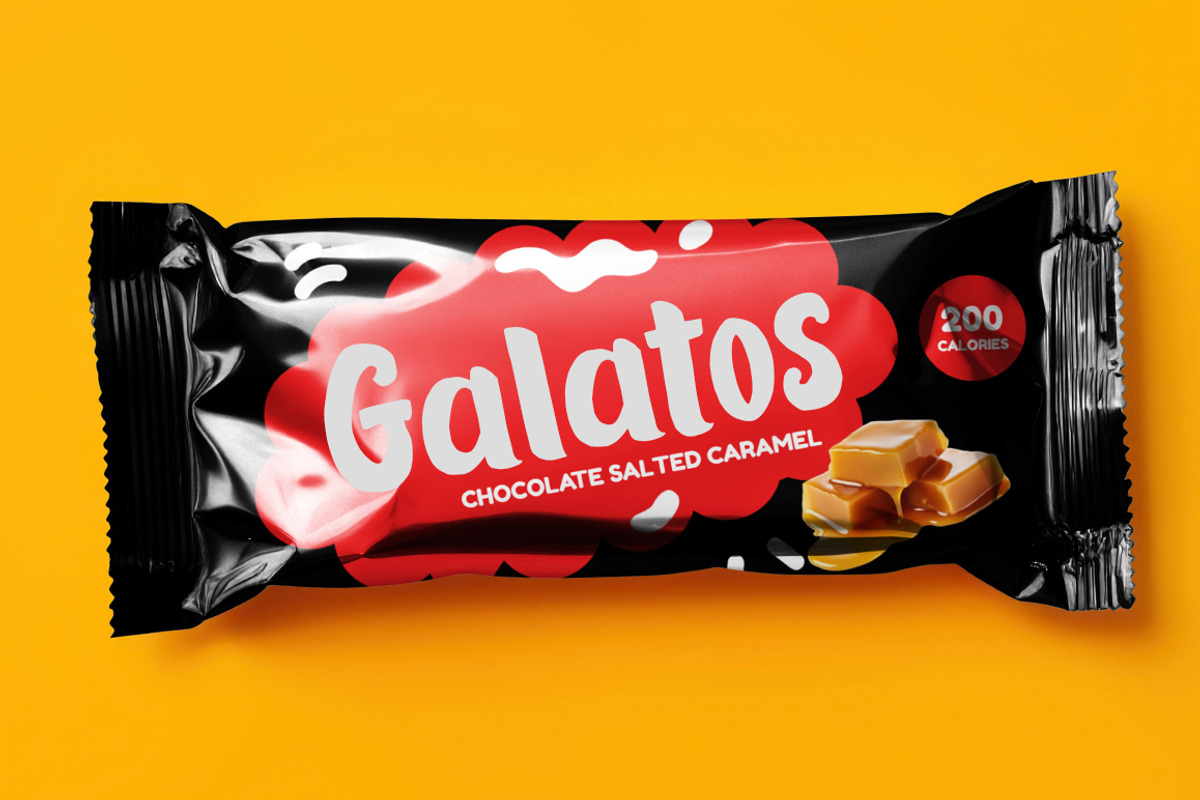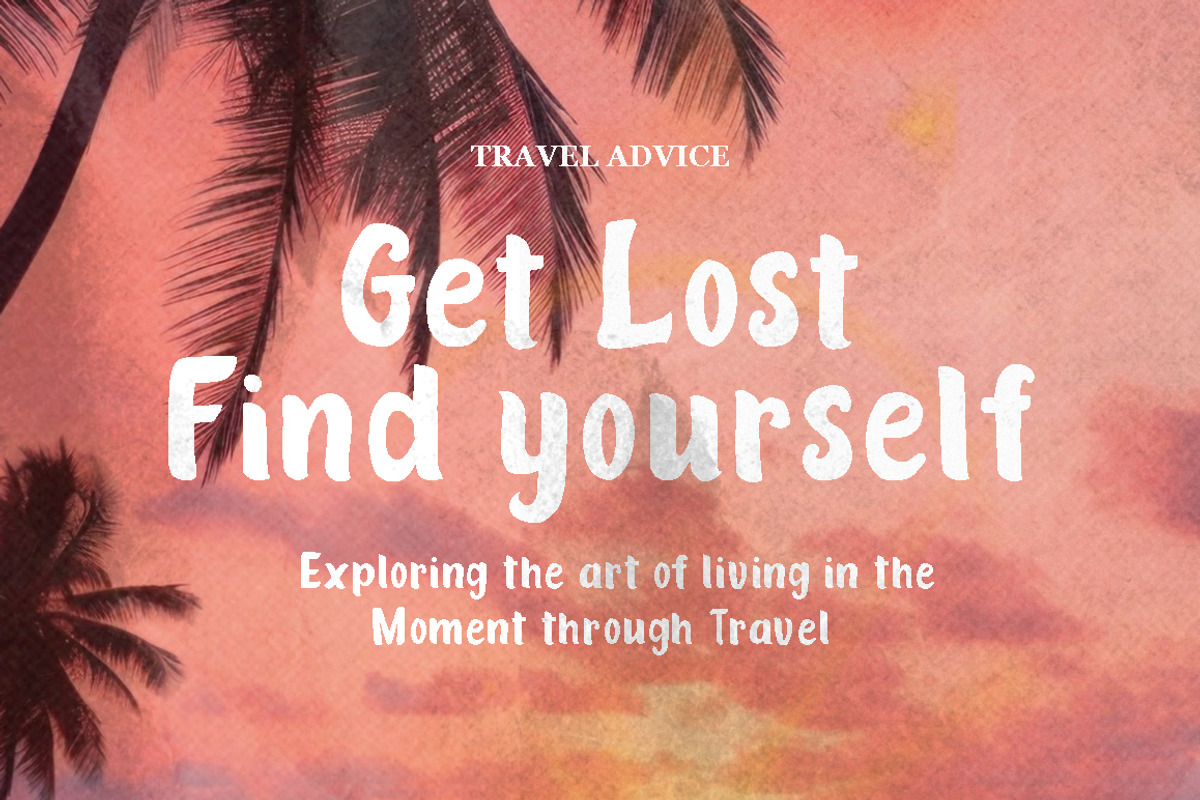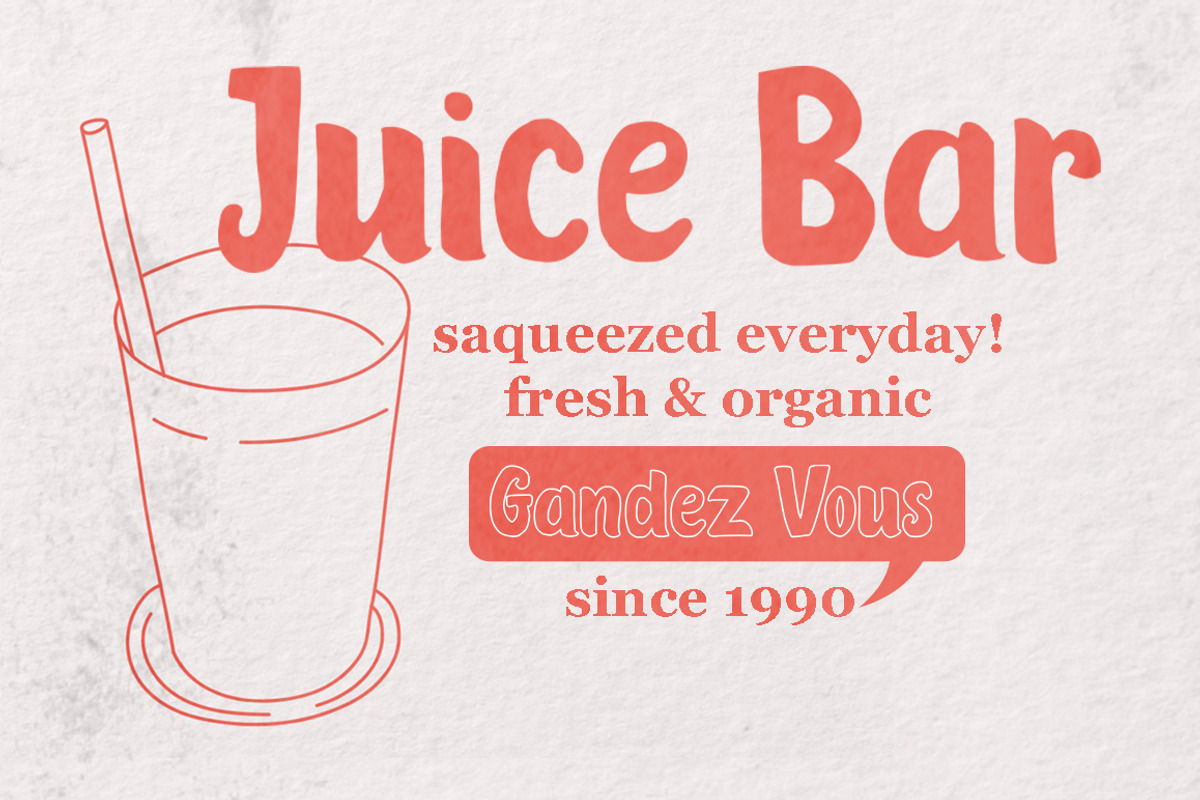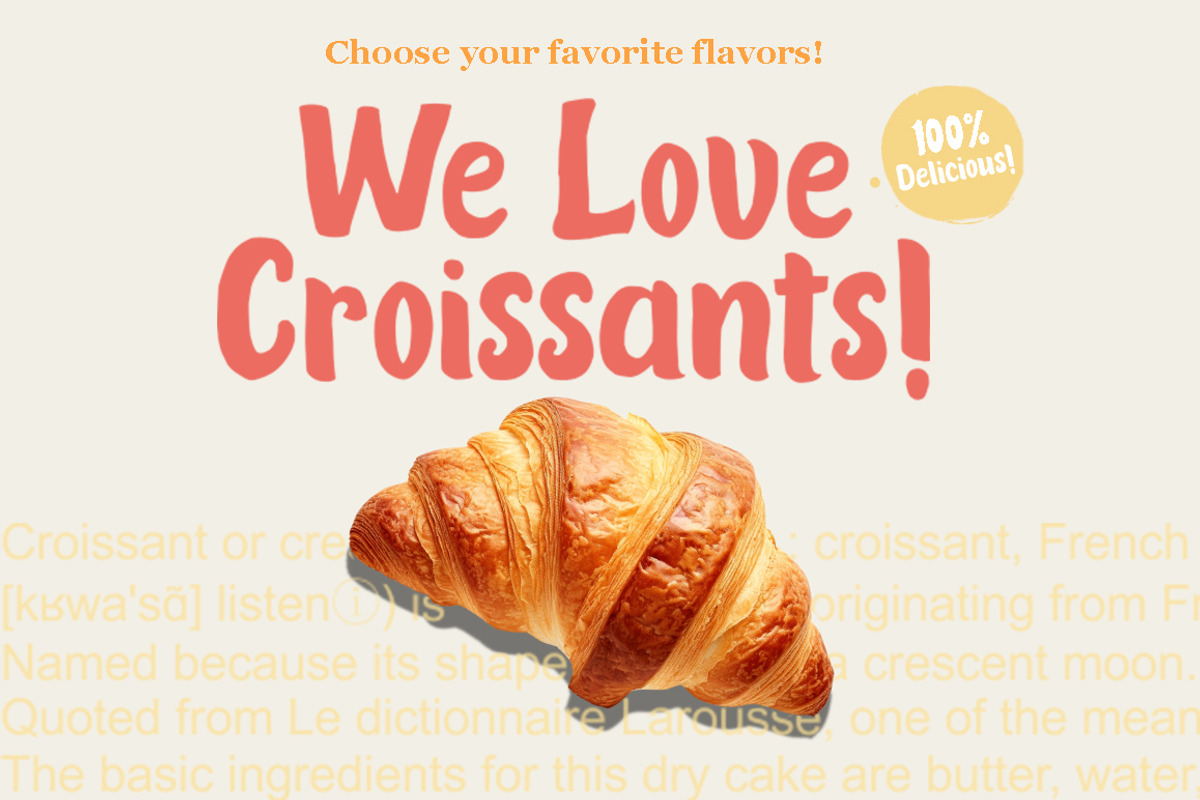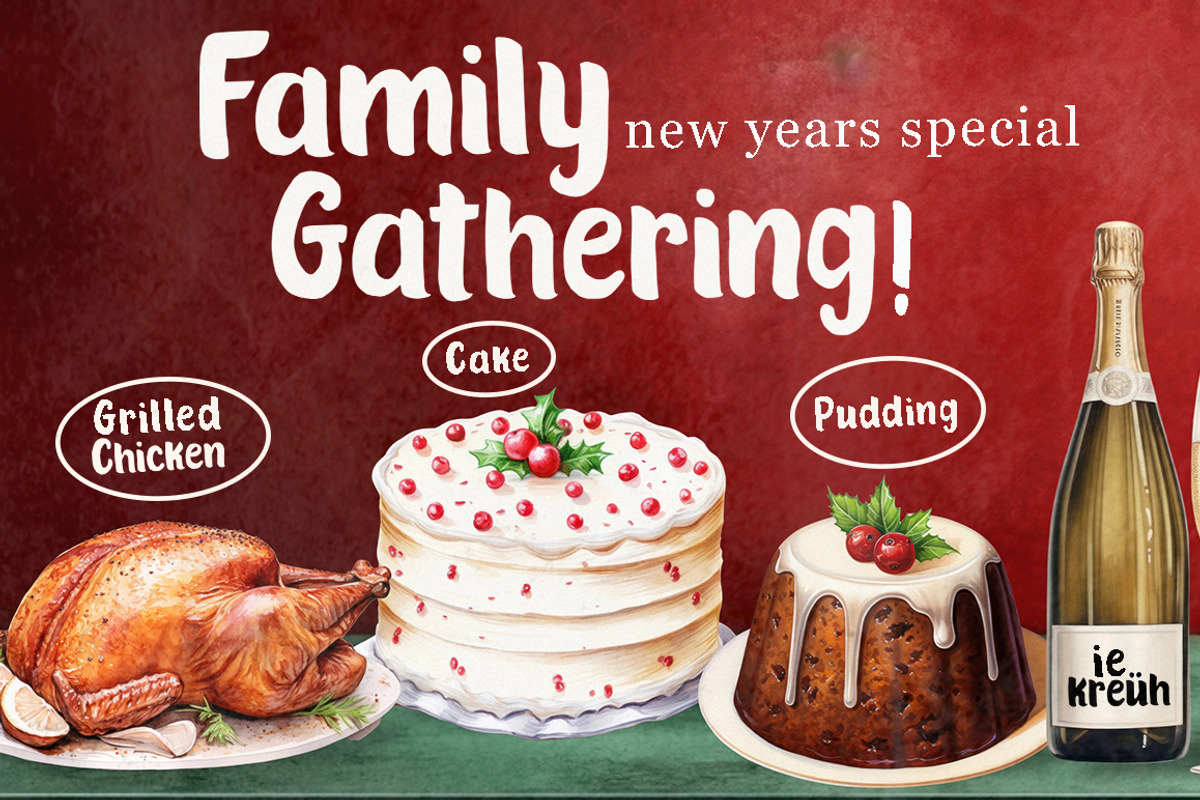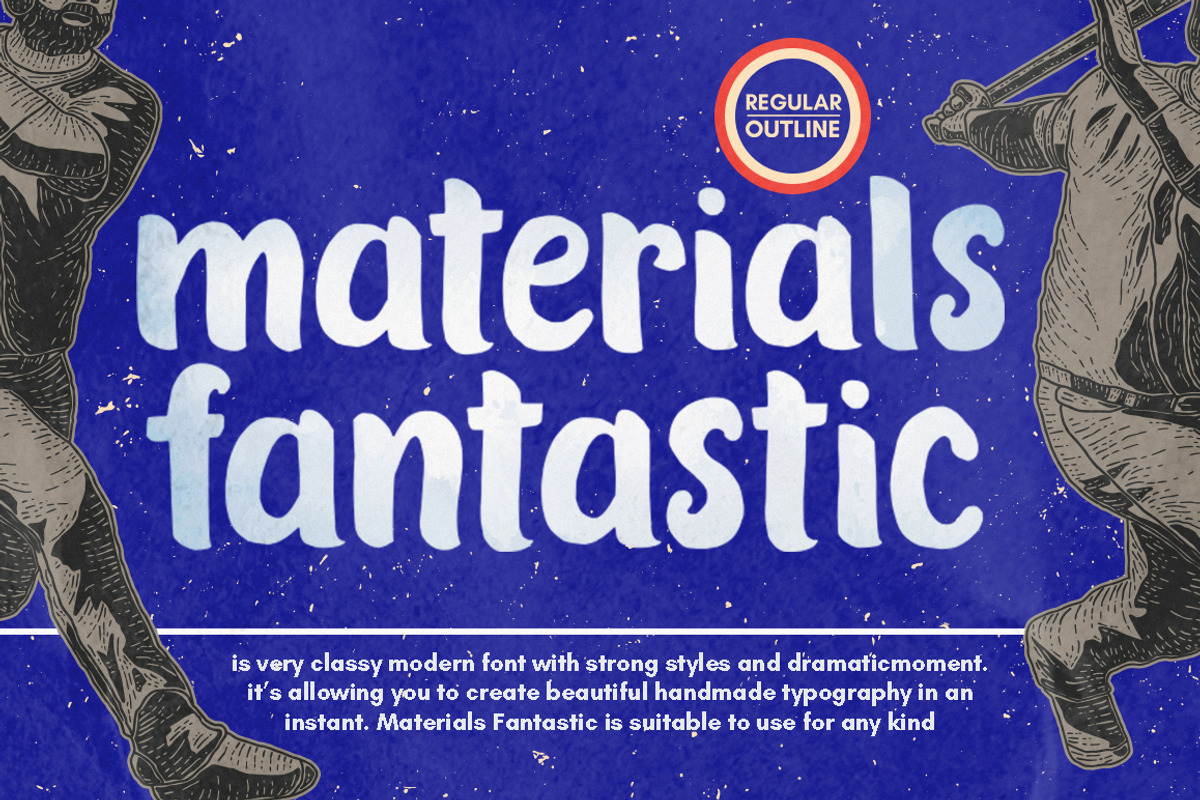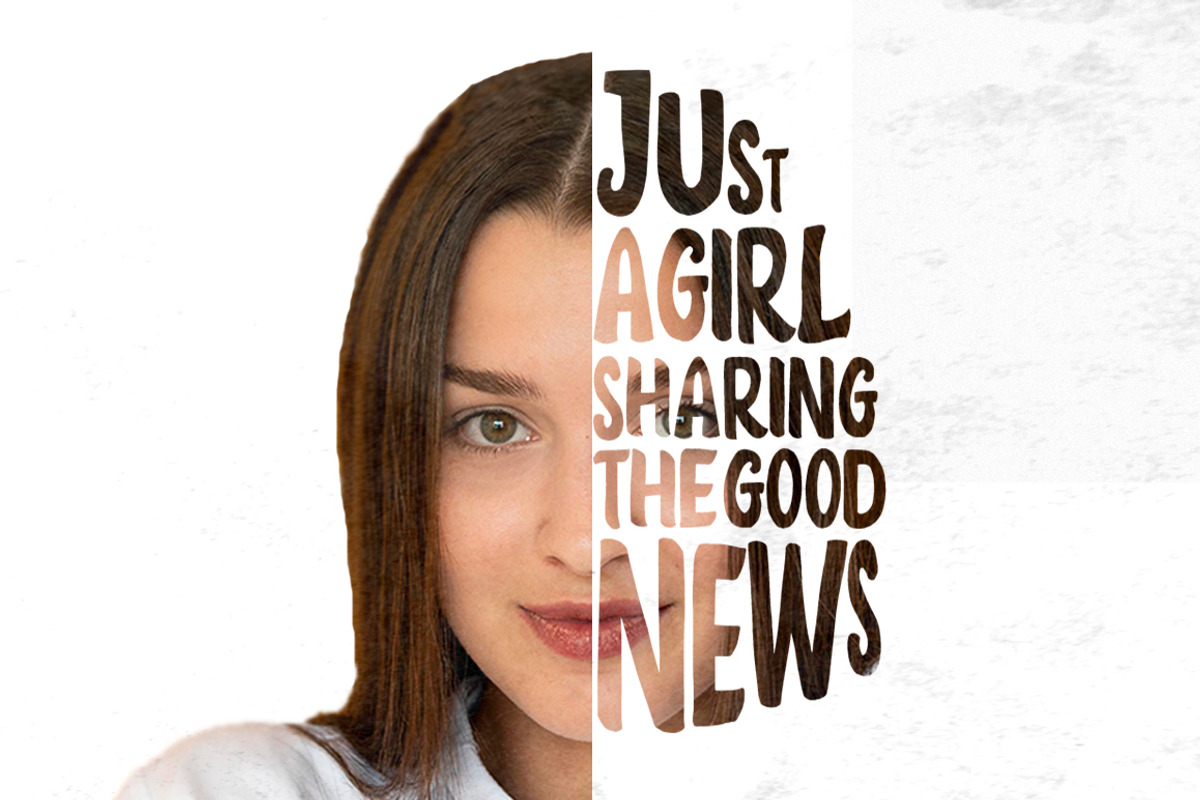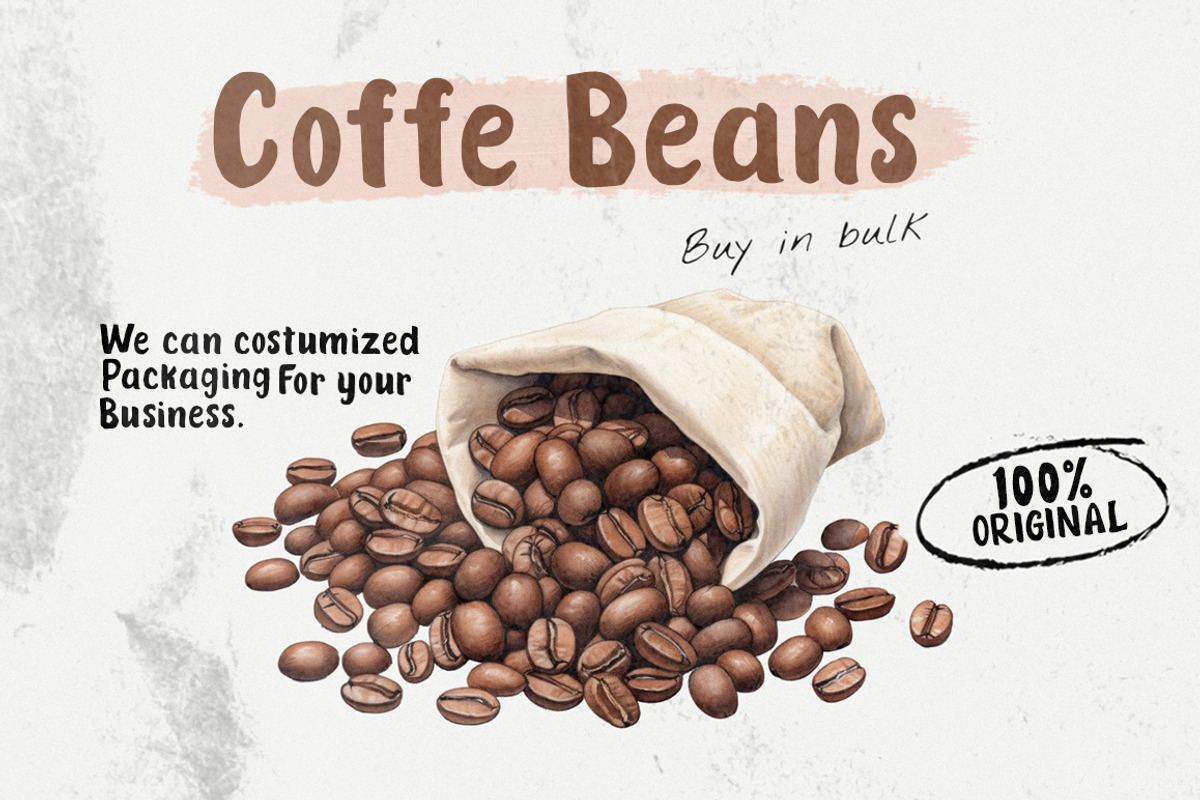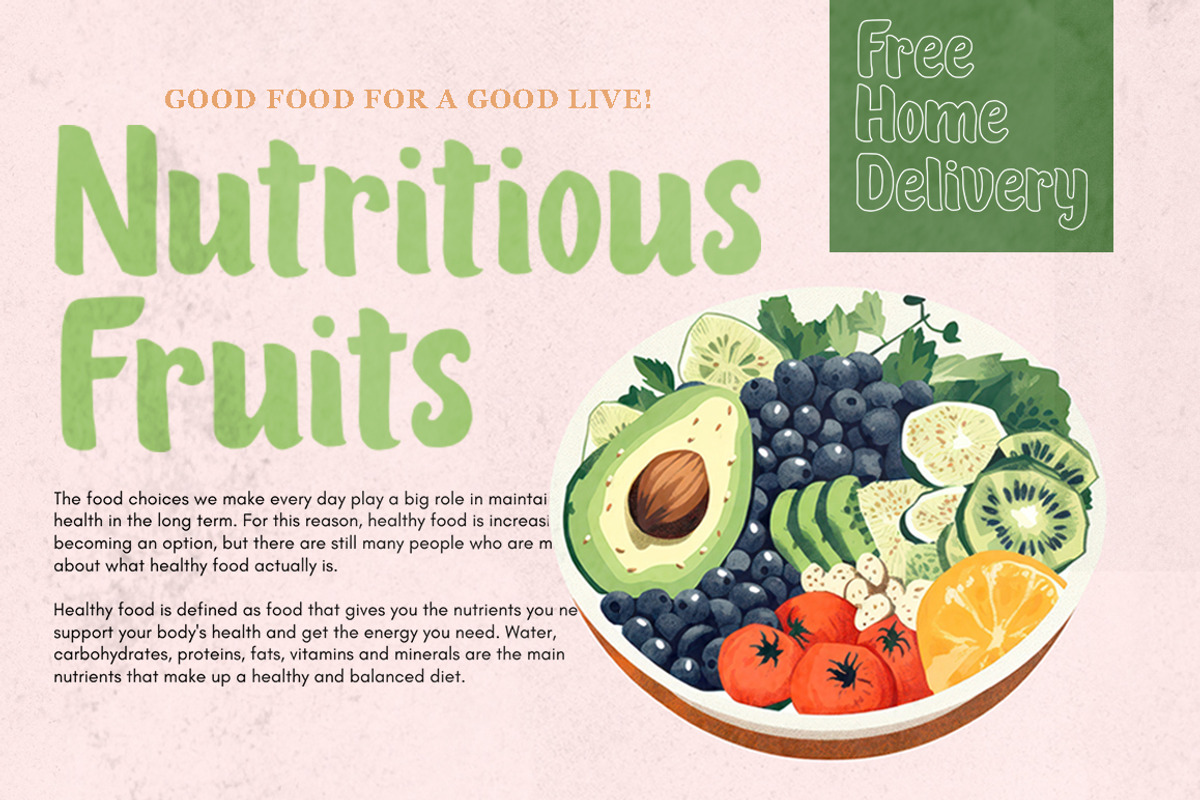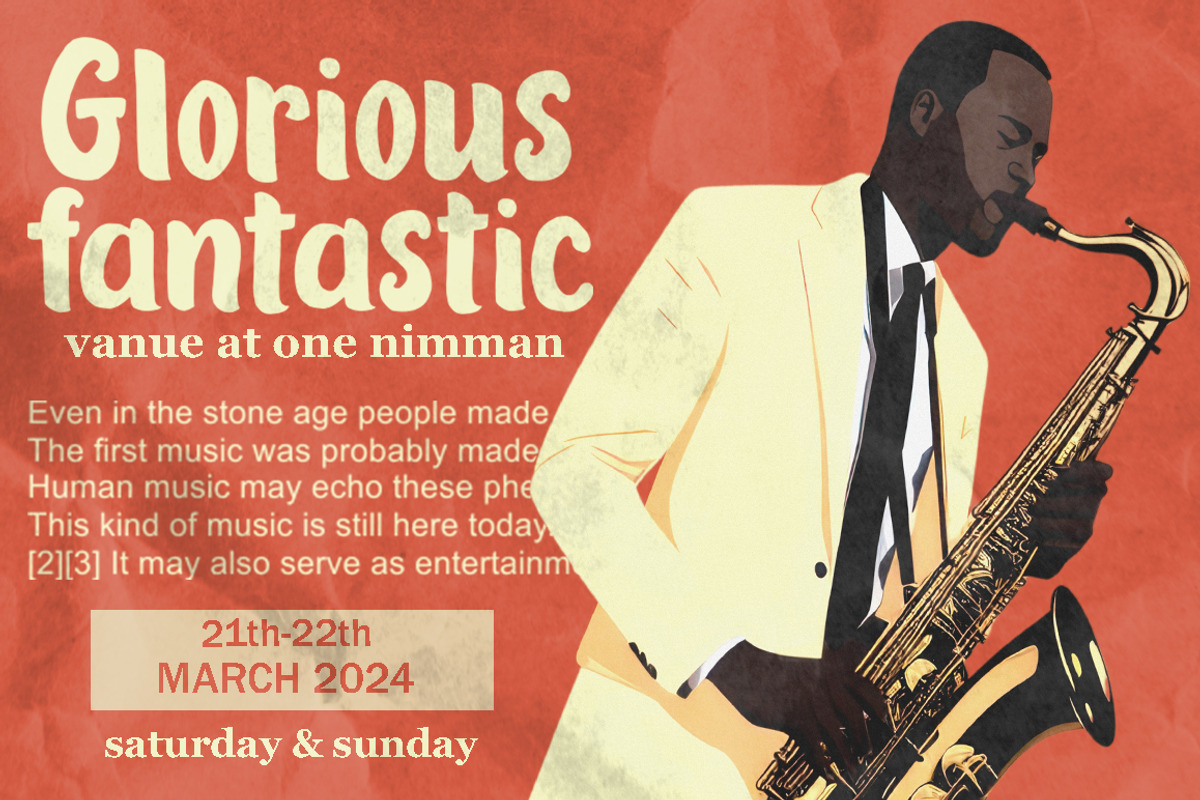
Materials Fantastic
Materials Fantastic & Materials Fantastic Outline is a hand brush font made with brushes and ink. This typeface is ideal for use in thick watercolor designs or handwriting styles, such as blog titles, posters, wedding elements, t-shirts, clothing, book covers, business cards, greeting cards, branding, merchandise etc.
Contains full set :
Lowercase
number
multilingual support.